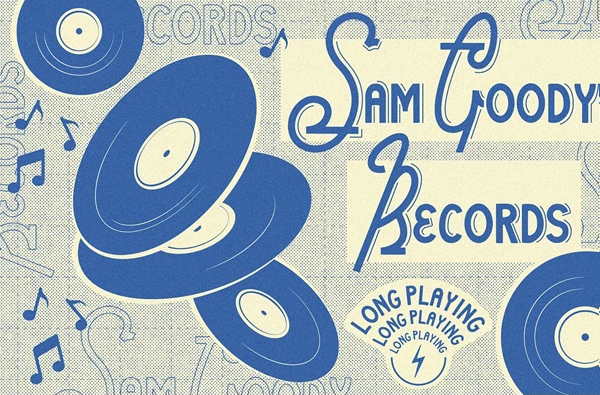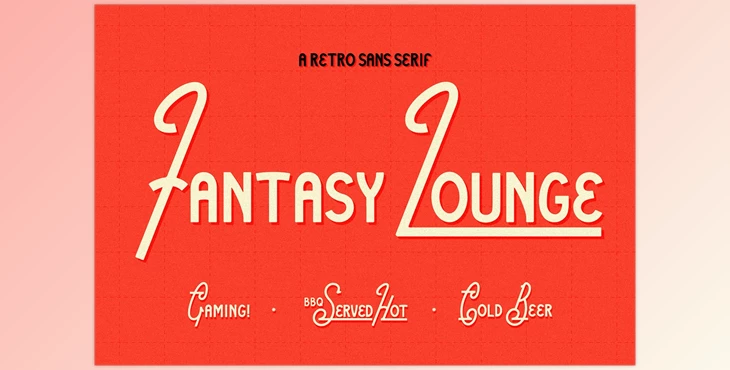
Fantasy Lounge - Retro Sans Serif Typeface: Introducing Fantasy Lounge, a versatile retro sans serif typeface bursting with personality and charm. Fantasy Lounge is the perfect choice for an extensive range of design projects that evoke nostalgia while offering modern versatility. Fantasy Lounge adds a touch of whimsy and character to any design with its unique blend of retro-inspired elements and contemporary flair.
Whether you're creating vintage-inspired posters, quirky branding materials, or playful packaging, this typeface will captivate your audience.
Fantasy Lounge offers a range of weights and styles, allowing you to customize your typography to suit your project's needs. From bold headlines to subtle body text, this typeface provides flexibility and versatility for any creative endeavor.